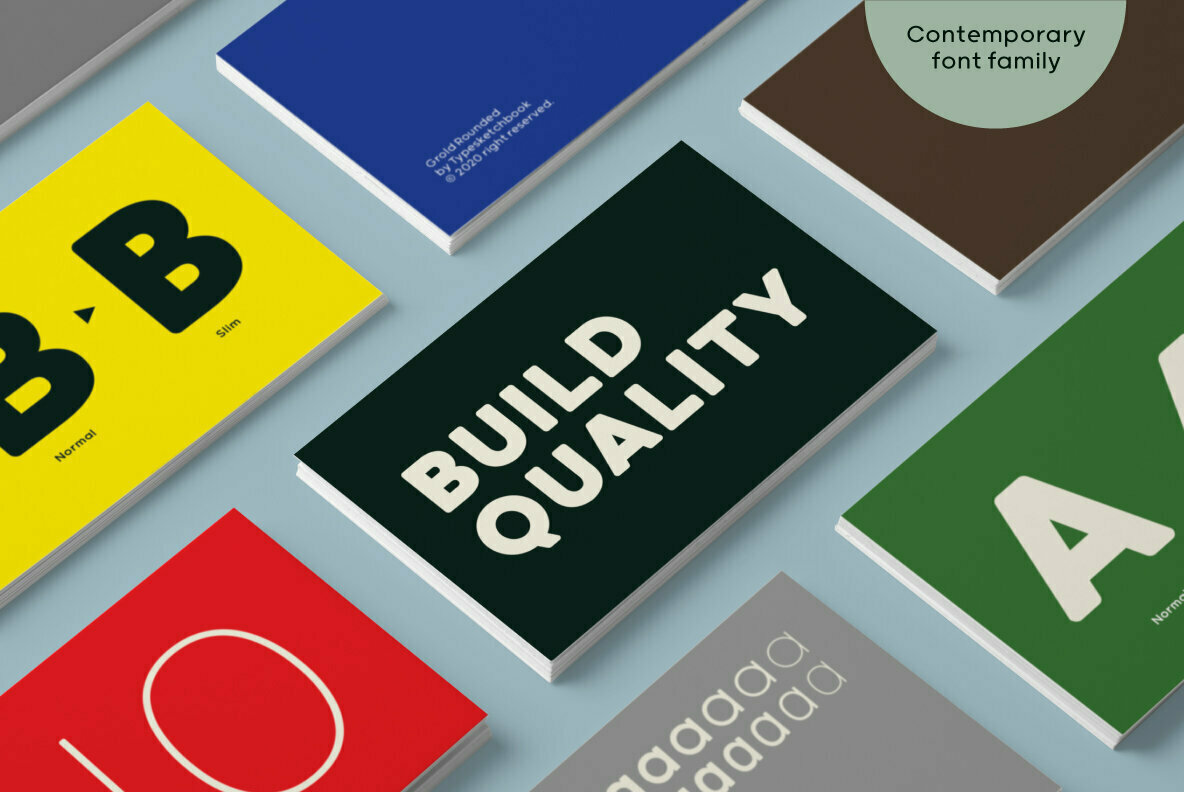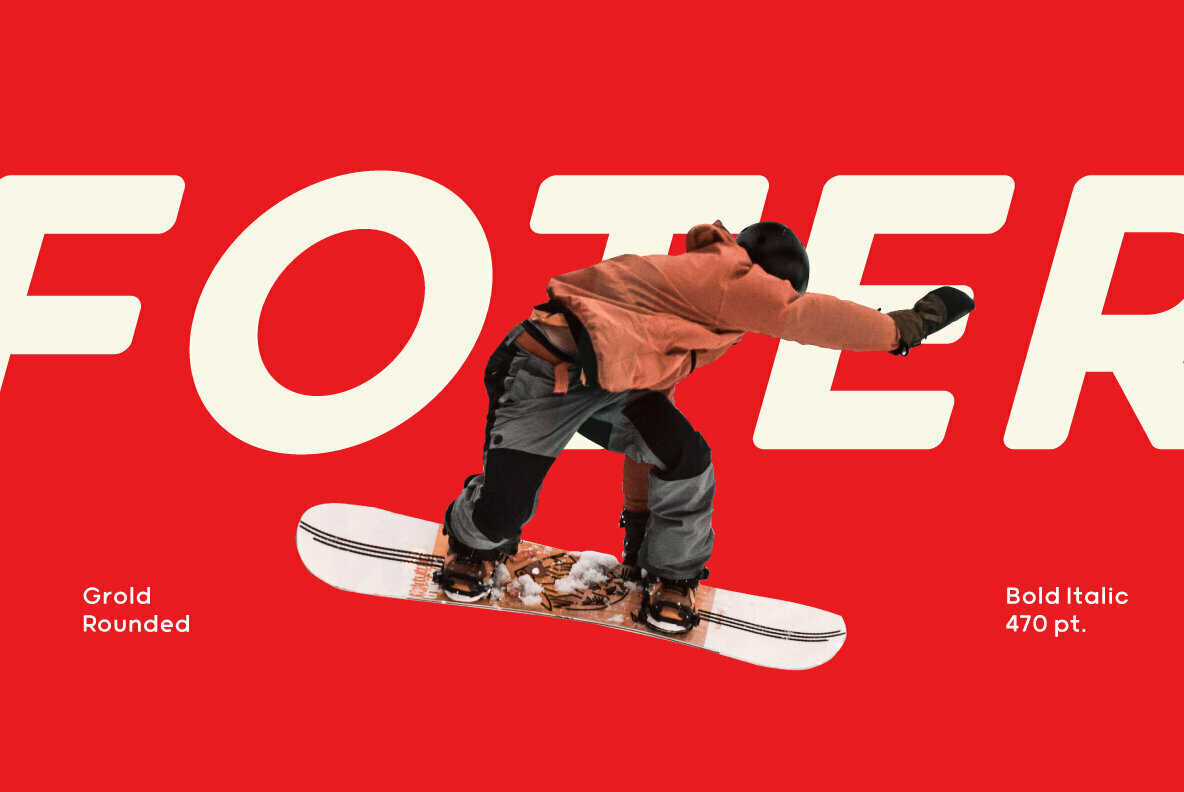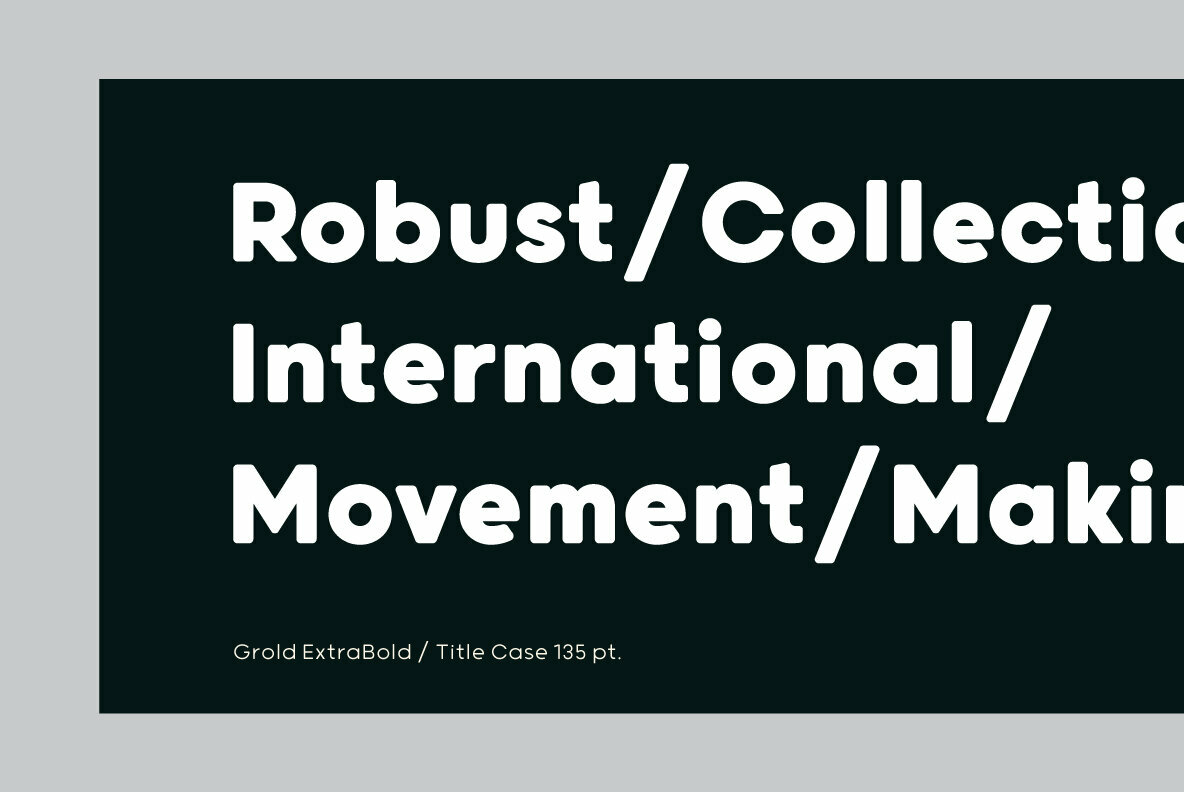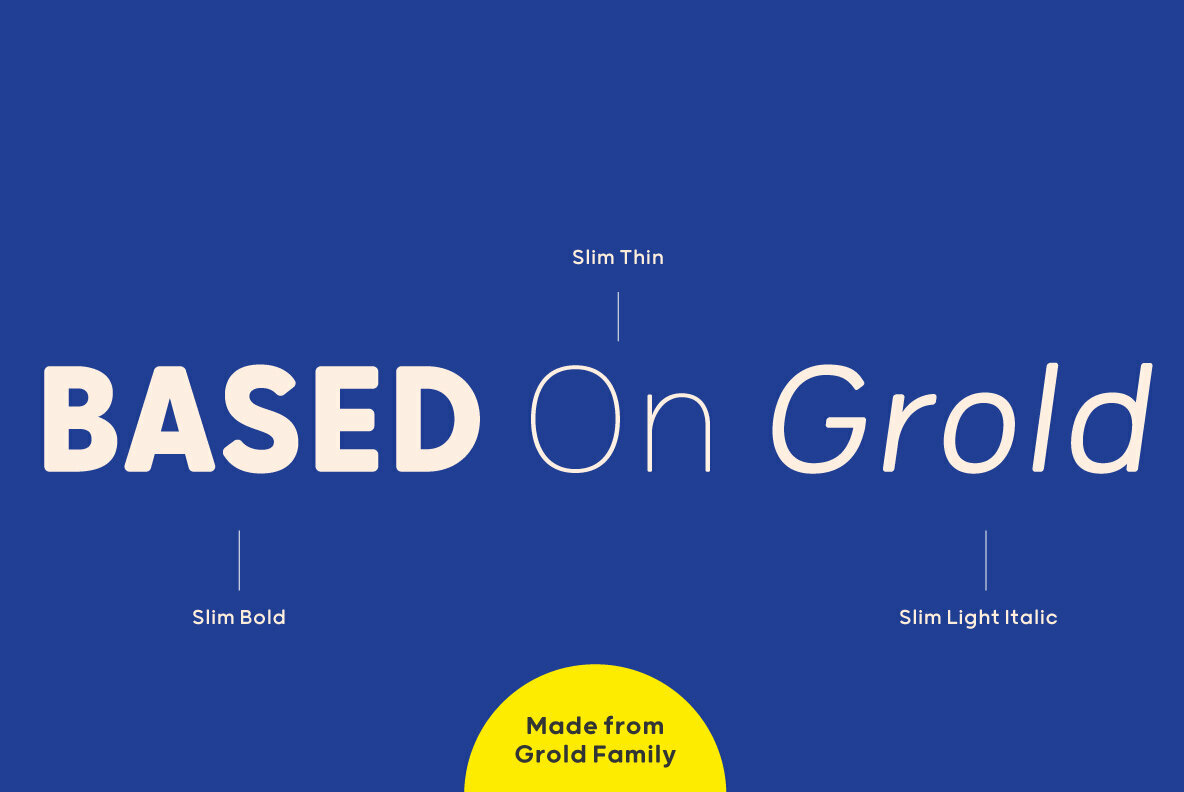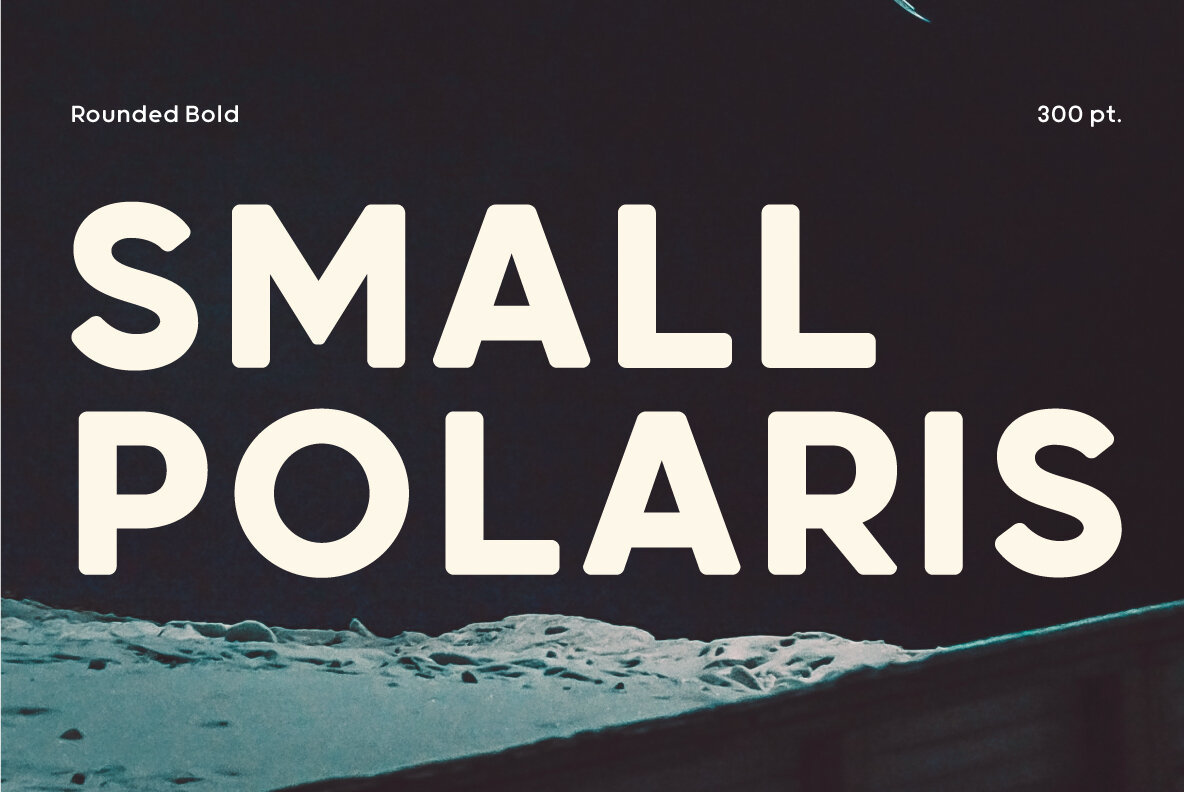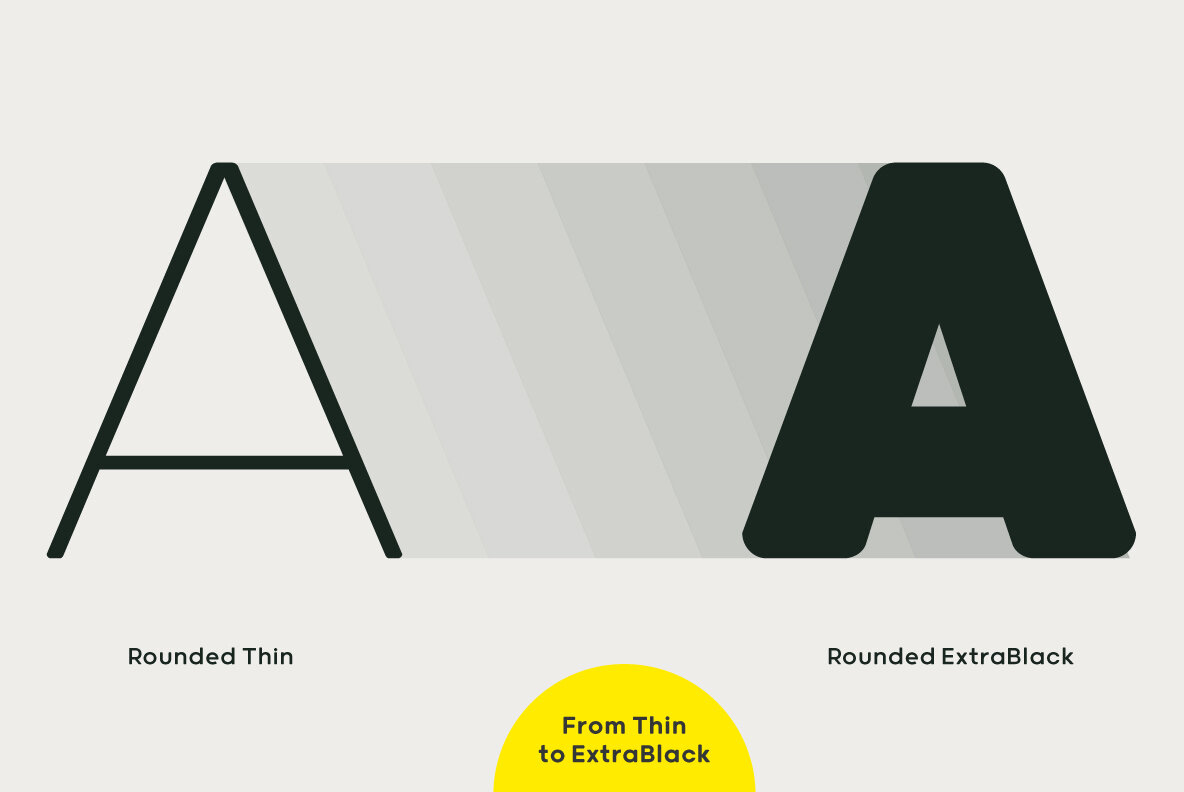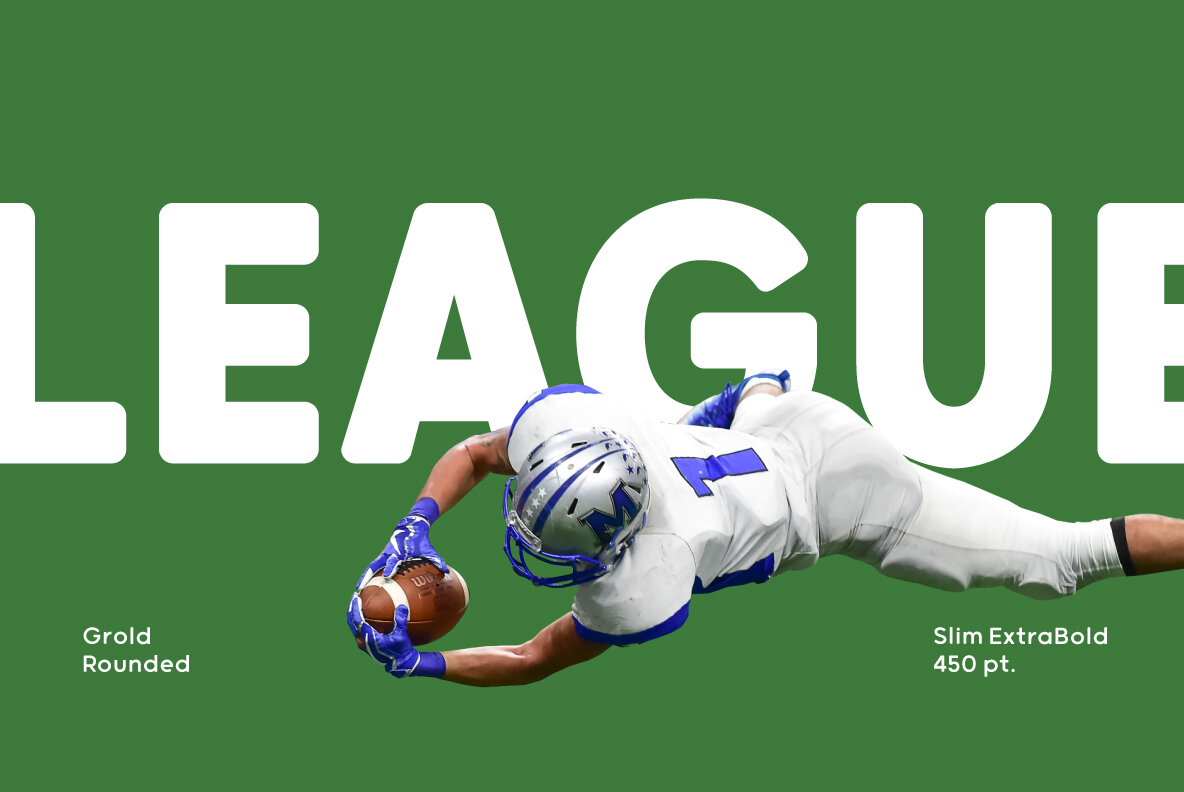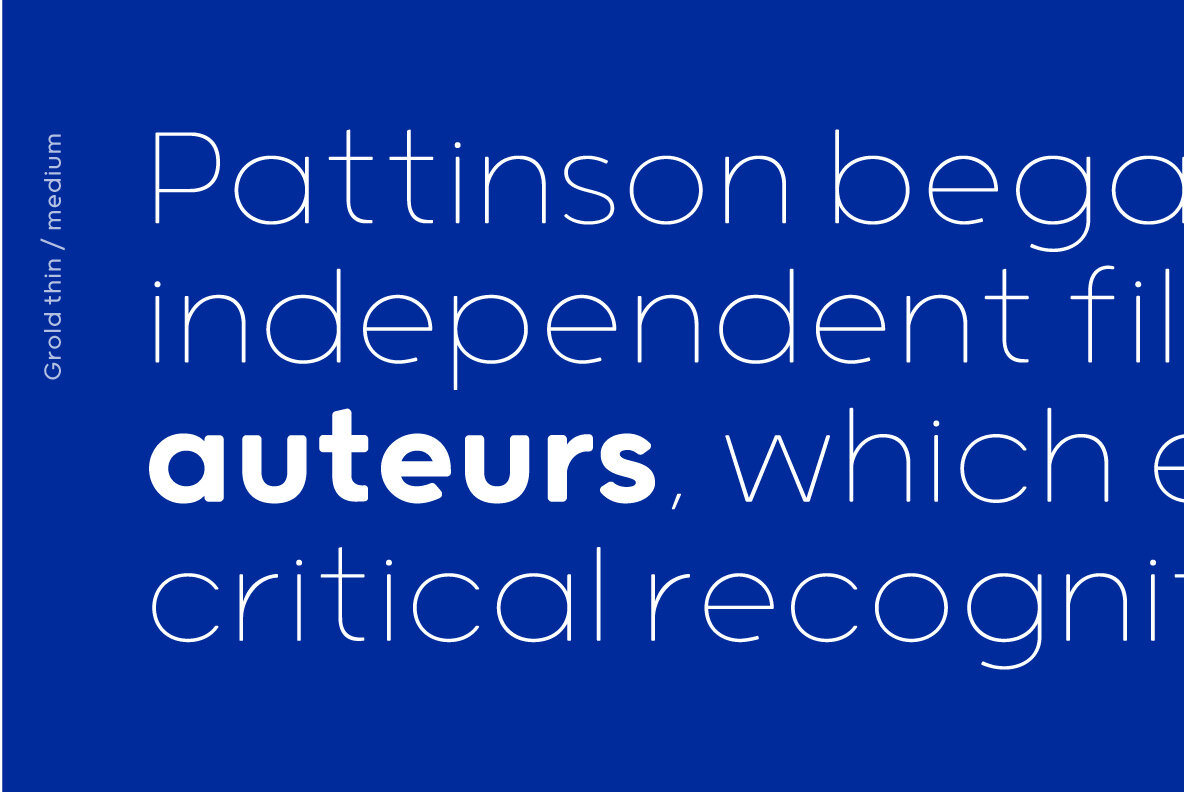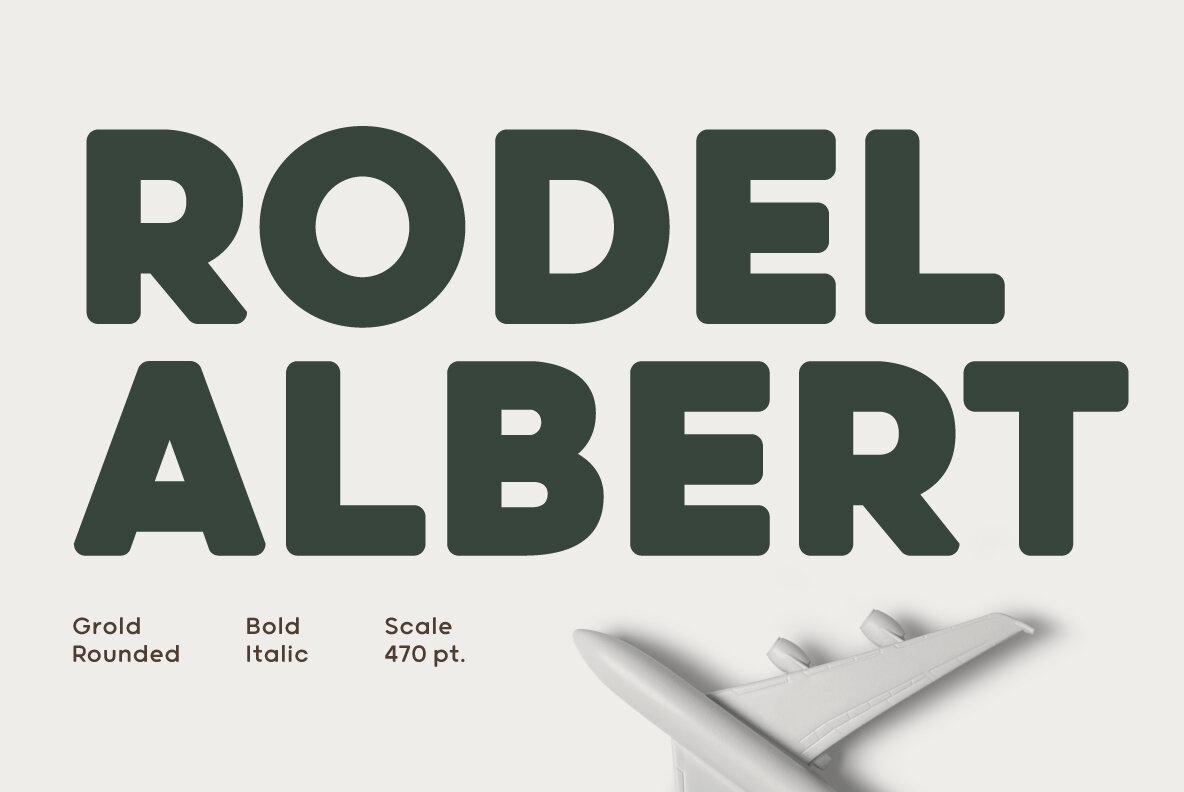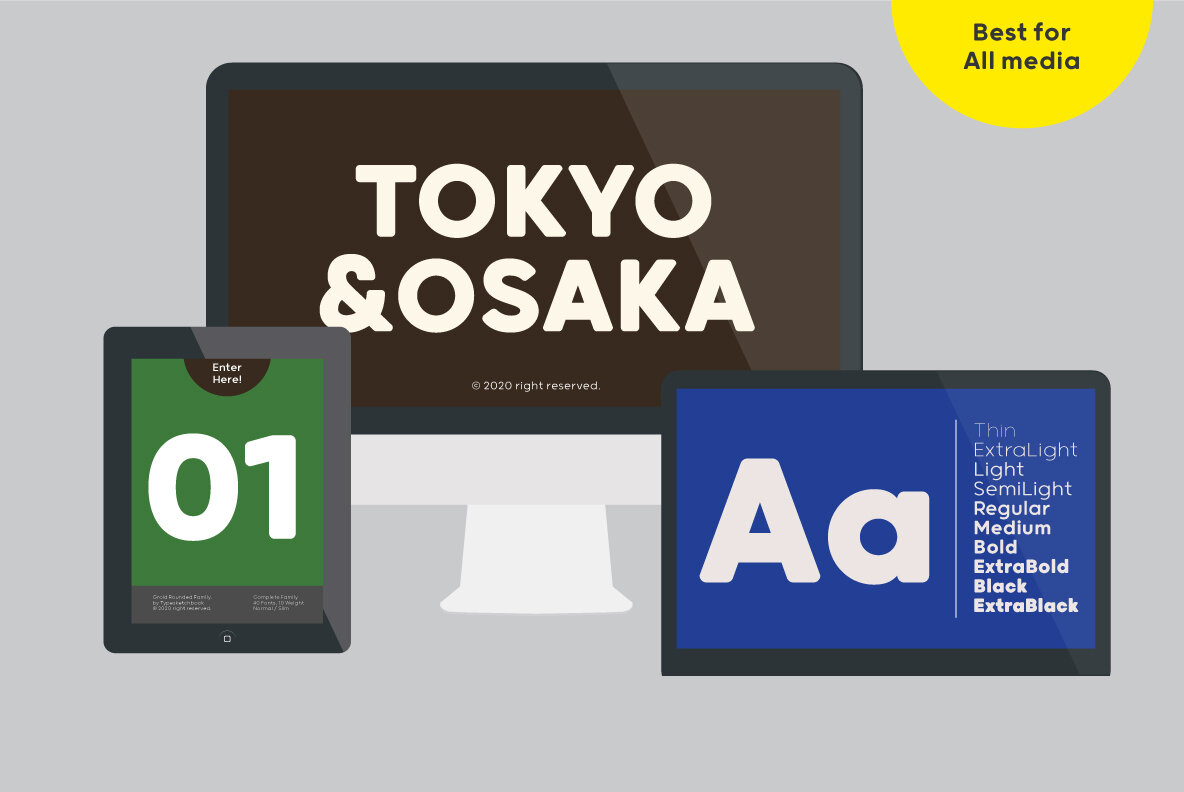
Grold Rounded Font
Grold Rounded is an altered modified from the form of the original “Grold” typeface. Designed to be more friendly, the font family has rounded terminals that harmonizes with rounded corners. With all of these features, “Grold Rounded” is a prominent, eye-catching and unique typeface. It comes with 9 weights with 2 Hight options in order to suit for a multifunctional usage, especially for cooperative work, such as website, magazine, editorial, publishing, as well as packaging.s